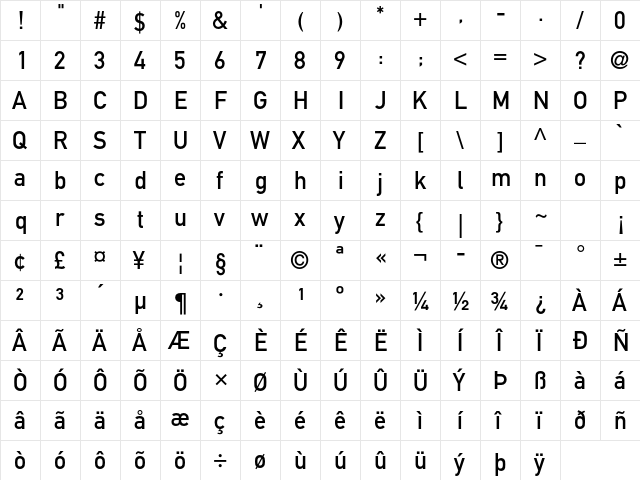
DIN 1451 Std Mittelschrift
| Designer | Linotype Staff |
Design Context for DIN 1451 Std Typeface
DIN 1451 Std offers clean, dependable letterforms without strong stylistic allegiance, making it a practical choice for designers who need flexibility.